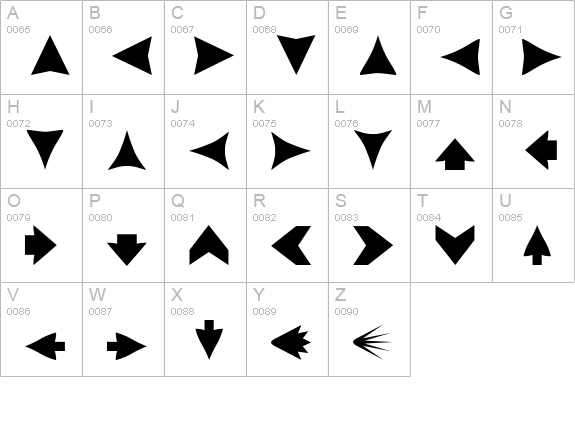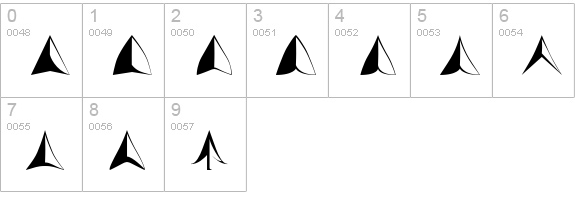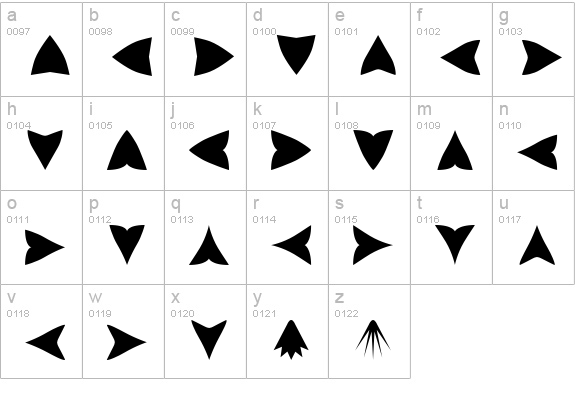
AltemusPointers Font Details
AltemusPointers is a classic and elegant font that exudes sophistication and charm. Its clean lines and modern appeal make it a versatile choice for a variety of design projects. This font is perfect for creating stylish logos, elegant invitations, eye-catching posters, and more. With its sleek design and timeless aesthetic, AltemusPointers is sure to make your text stand out. The best part about AltemusPointers font is that it is completely free to download at FontsMarket.com. This means you can easily access this stunning font and use it in your projects without any cost. Don't miss out on the opportunity to enhance your designs with the beauty of AltemusPointers - download it today and elevate your creativity to new heights.